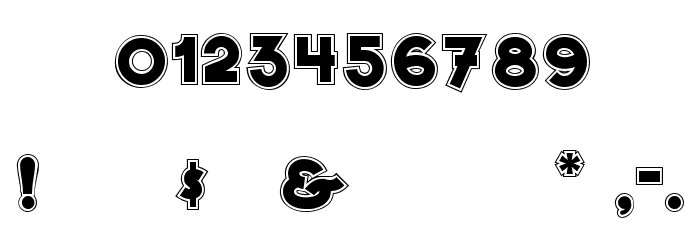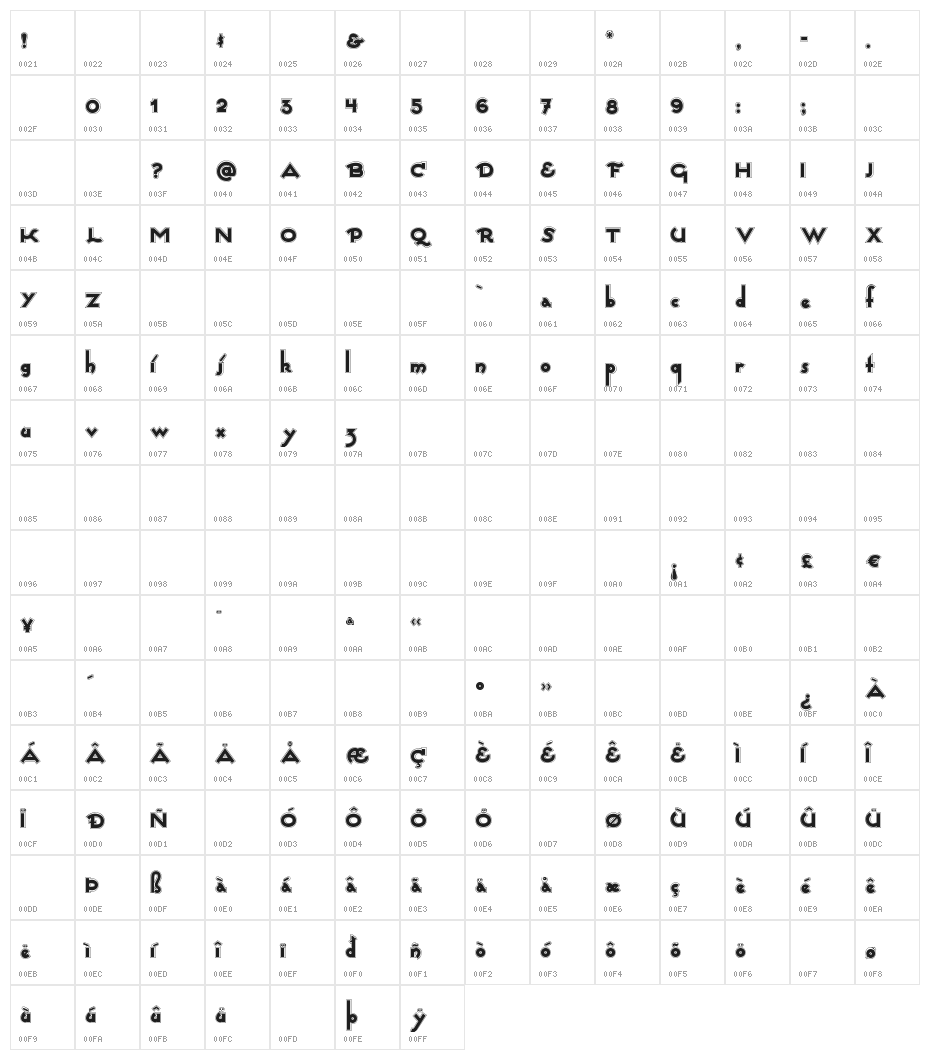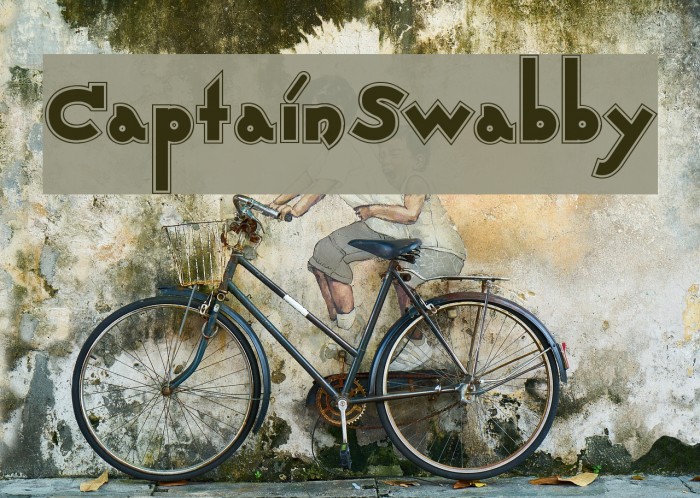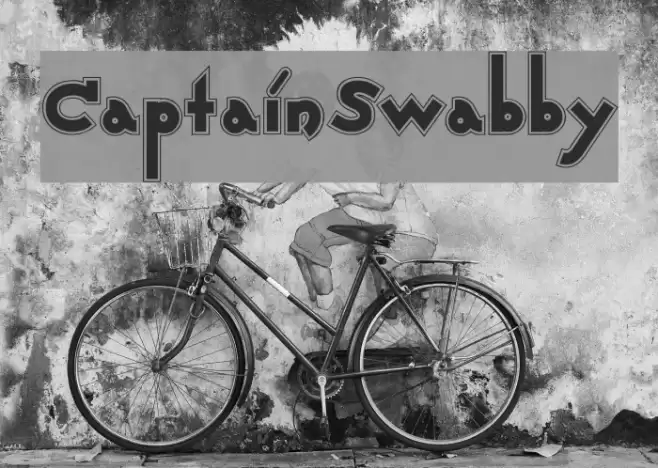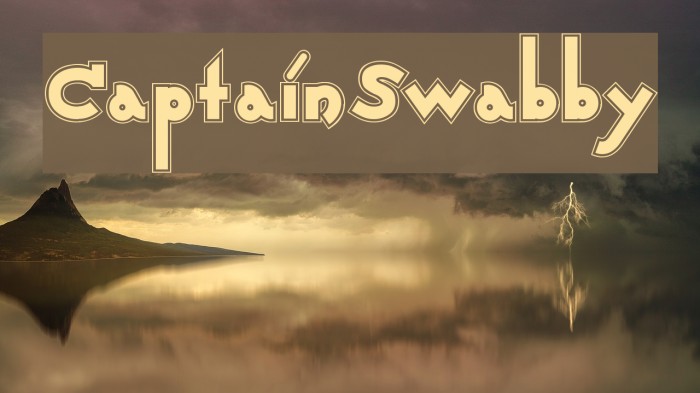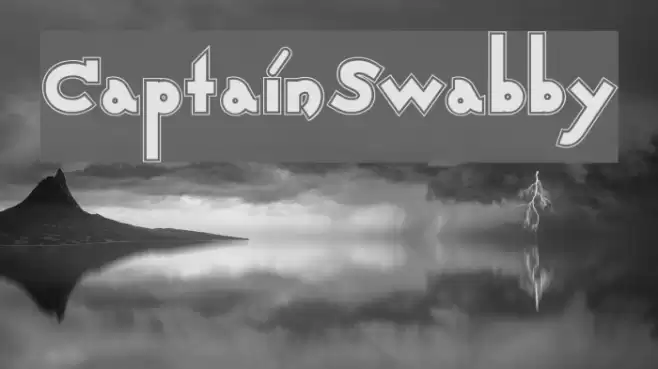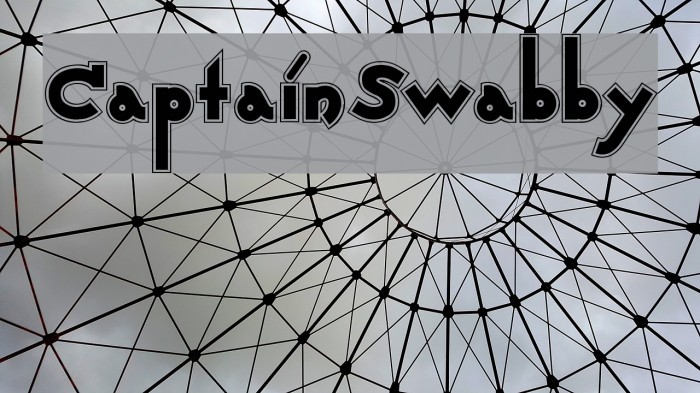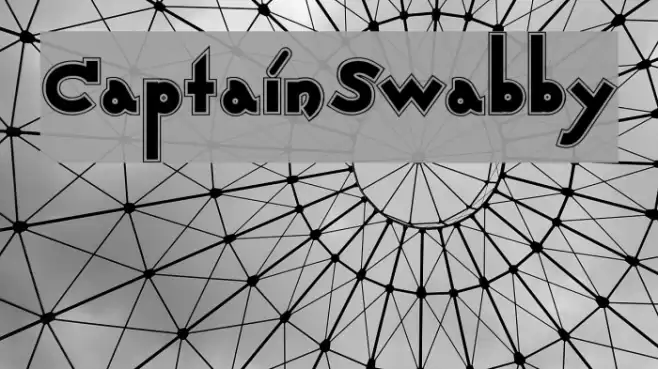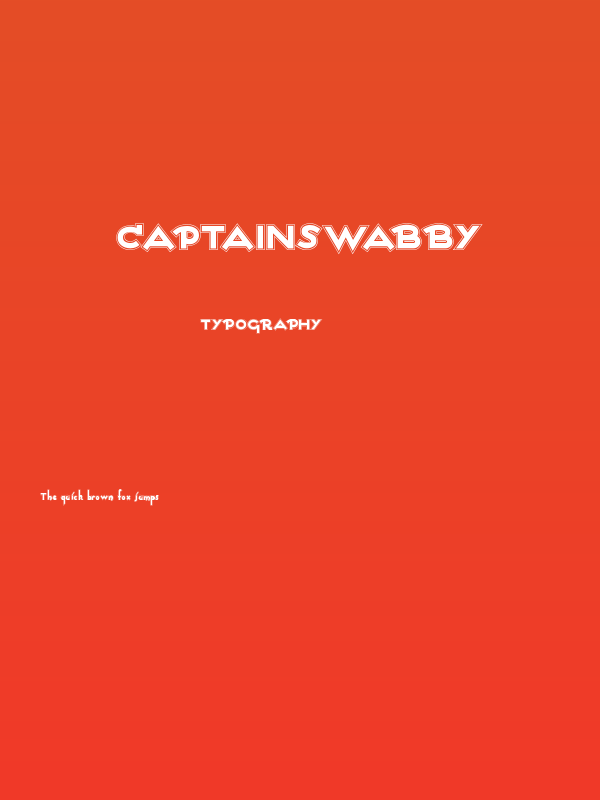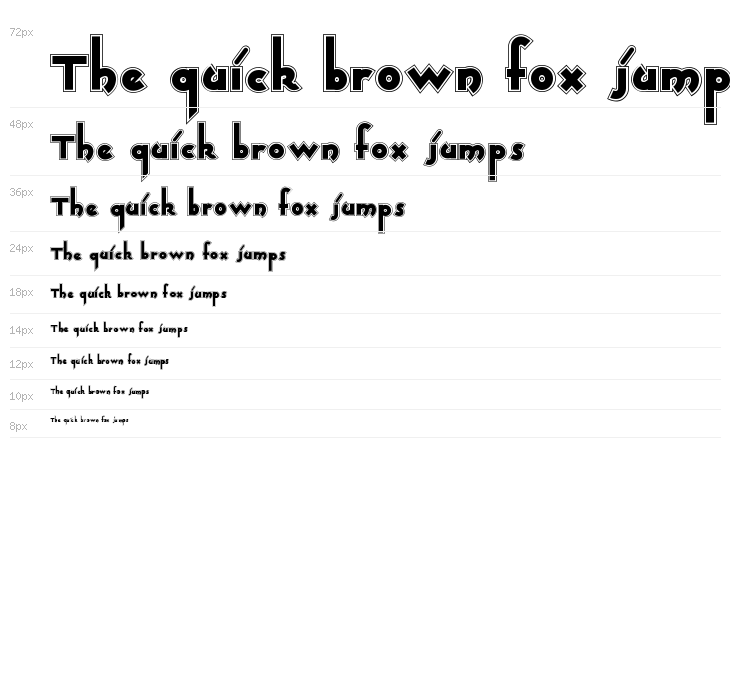
CaptainSwabby Font
CaptainSwabby Description
This font features a bold and playful design with a distinct outline that gives each character a three-dimensional effect. The uppercase letters are characterized by sharp angles and geometric shapes, while the lowercase letters maintain a consistent style with slightly rounded edges. The numbers and special characters follow the same bold and outlined aesthetic, ensuring a cohesive look across all elements. The font's unique style makes it stand out, offering a modern twist on traditional typefaces. Its bold presence is ideal for capturing attention and conveying a sense of fun and creativity.
| Proposed Projects | Ideal for posters, logos, children's books, and any project needing a fun, eye-catching typeface. |